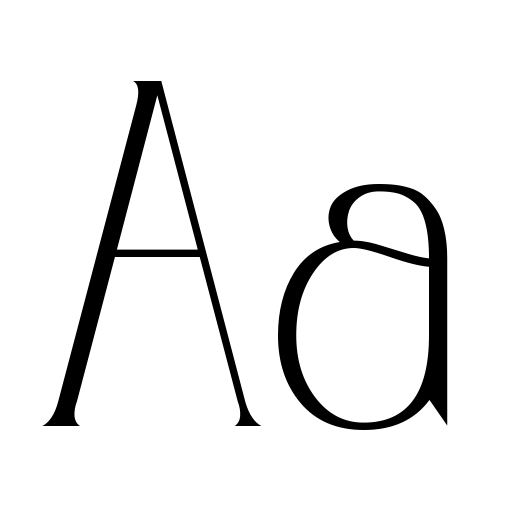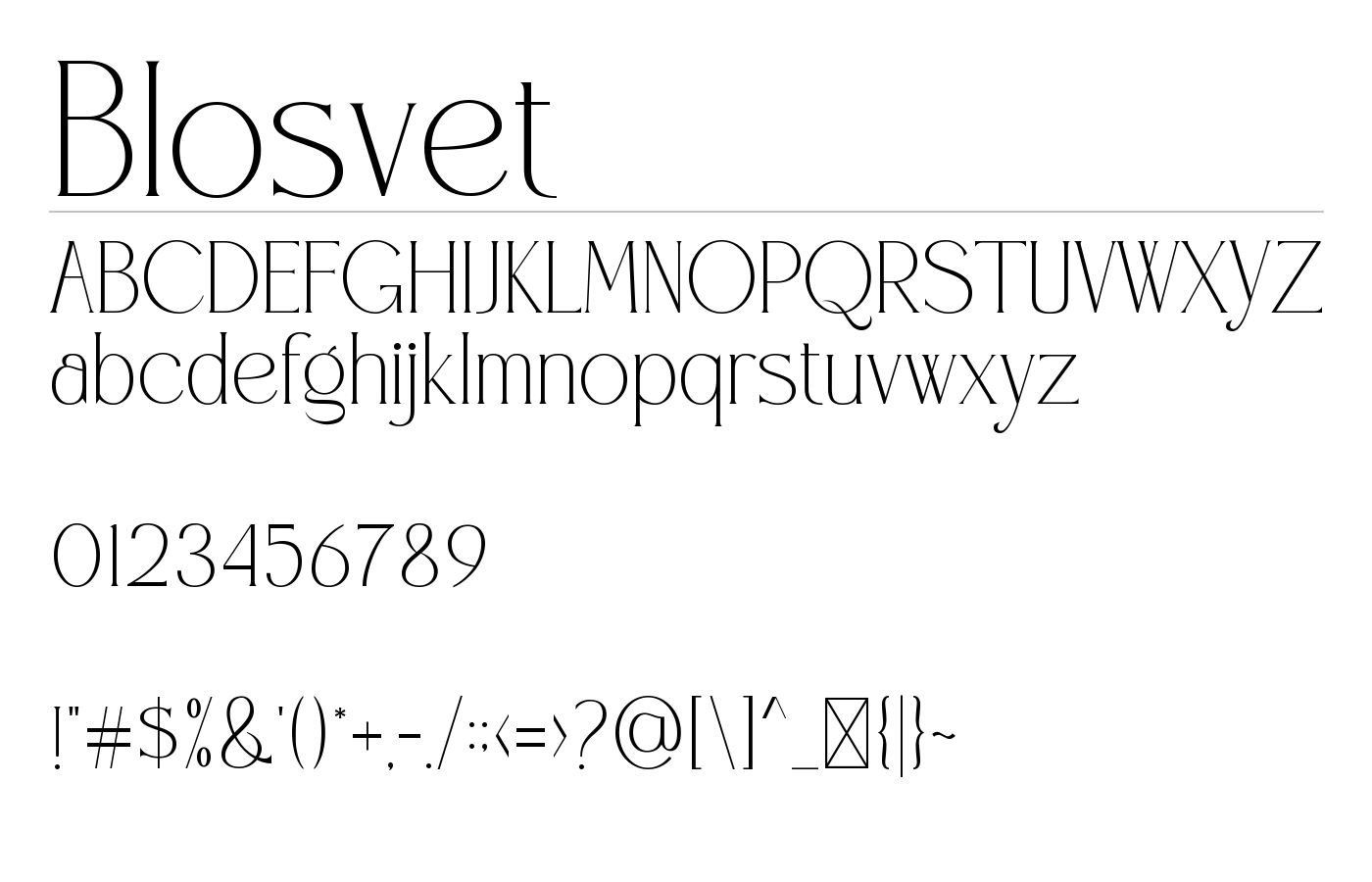
Blosvet is a delicate serif font characterized by its slender, elegant letterforms and high contrast between thin and thick strokes. With its refined, slightly elongated shapes and subtle curves, it exudes a sophisticated, modern feel that suits luxury branding, editorial headlines, and fashion-focused designs. This font works best where a touch of elegance and clarity is needed, making it ideal for upscale logos, magazines, and stylish posters.
Blosvet Font
About Blosvet Font